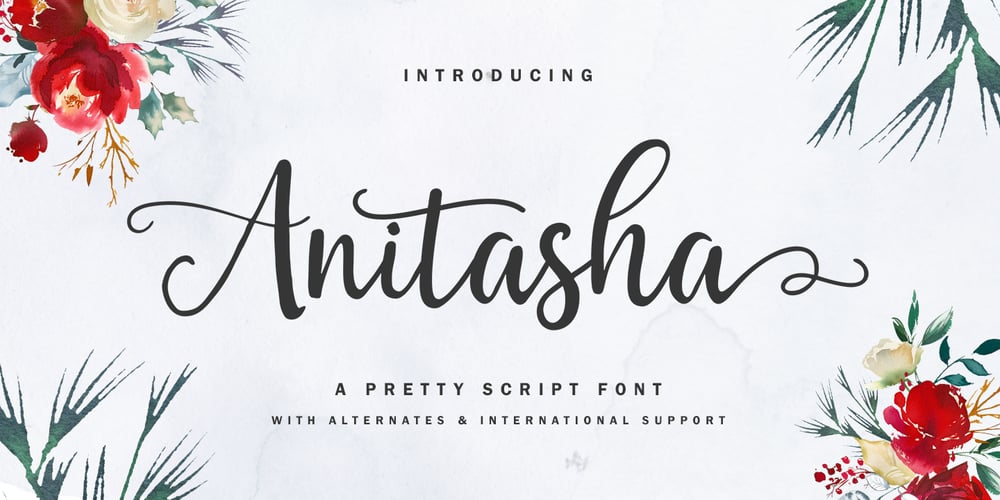
Anitasha Font Family was designed by Mulkan Nazir and published by Great Studio. Anitasha contains 2 styles and family package options. Anitasha is a modern pretty script font, organic, dynamic and energetic style. Can be used for various purposes such as the titles, signature, logos, correspondence, wedding invitations, letterhead, signage, labels, newsletters, posters, badges, etc. To enable the OpenType Stylistic alternates, you need a program that supports OpenType features such as Adobe Illustrator CS, Adobe Indesign & CorelDraw X6-X7, Microsoft Word 2010 or later versions. How to access all alternative characters, using Windows Character Map with Photoshop: https://www.youtube.com/watch?v=Go9vacoYmBw How to access all alternative characters using Adobe Illustrator: https://www.youtube.com/watch?v=XzwjMkbB-wQ Anitasha is coded with PUA Unicode, which allows full access to all the extra characters without having special designing software. Mac users can use Font Book and Windows users can use Character Map to view and copy any of the extra characters to paste into your favorite text editor/app. Thanks so much for looking and please let me know if you have any questions.